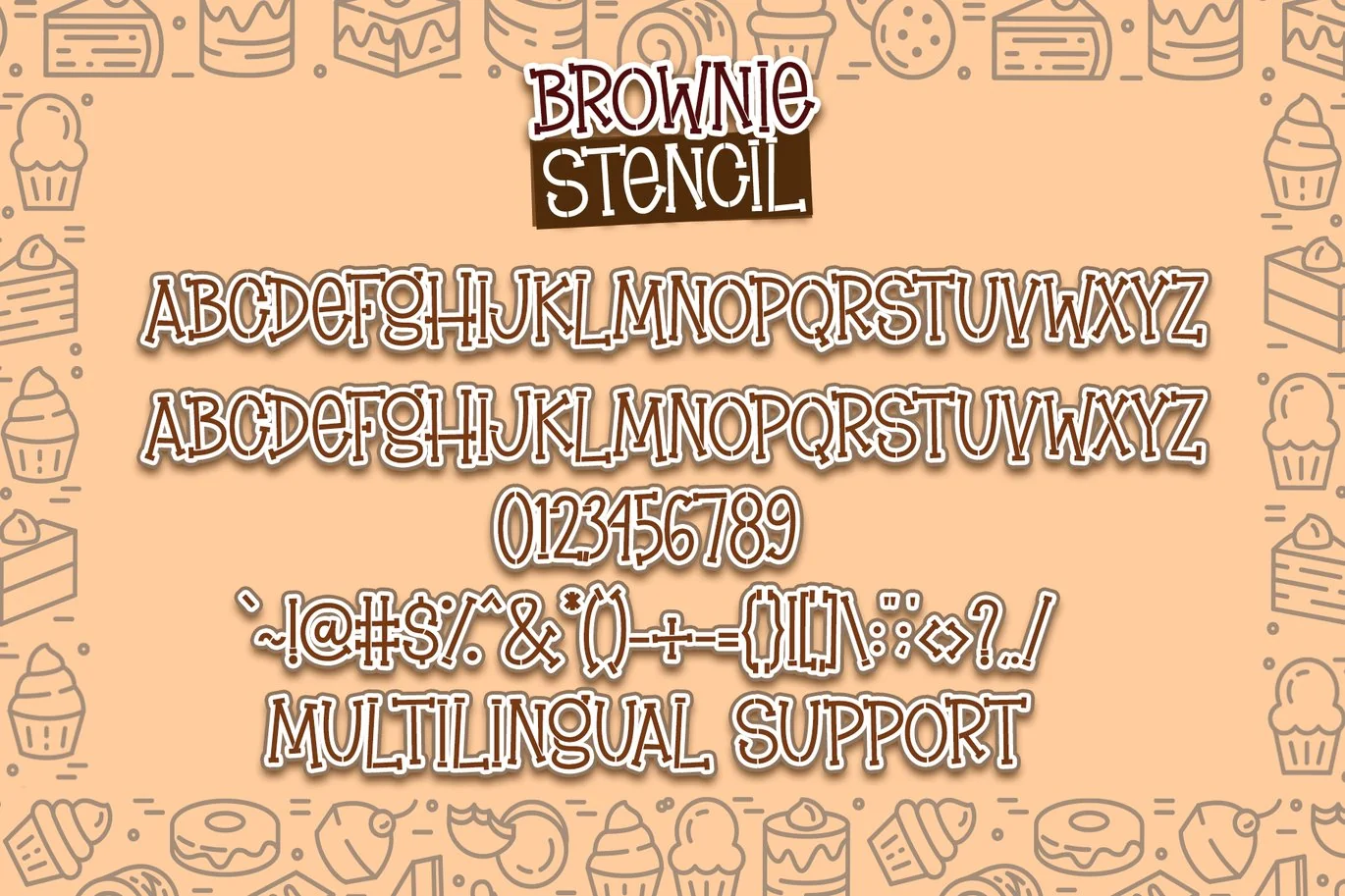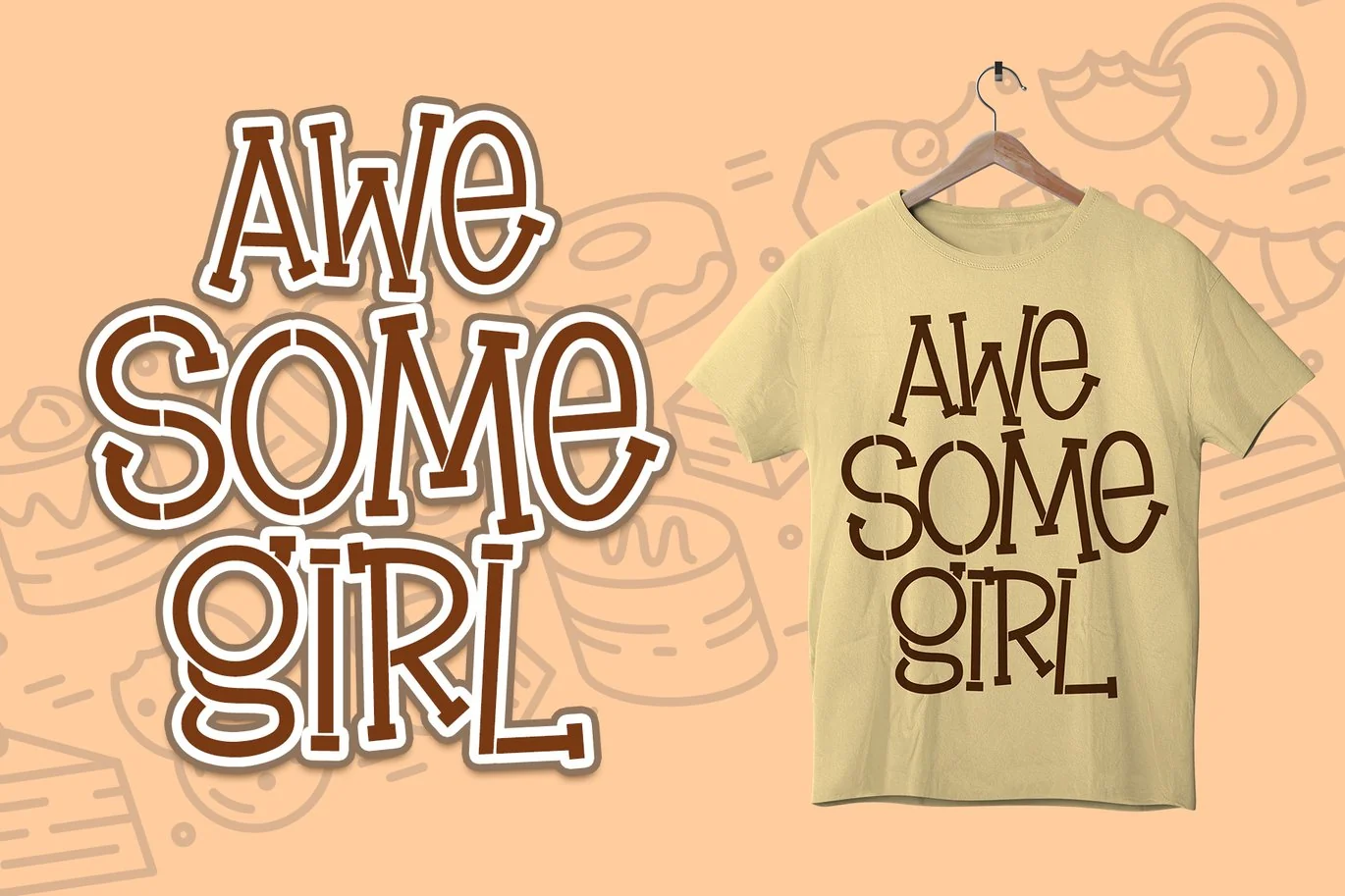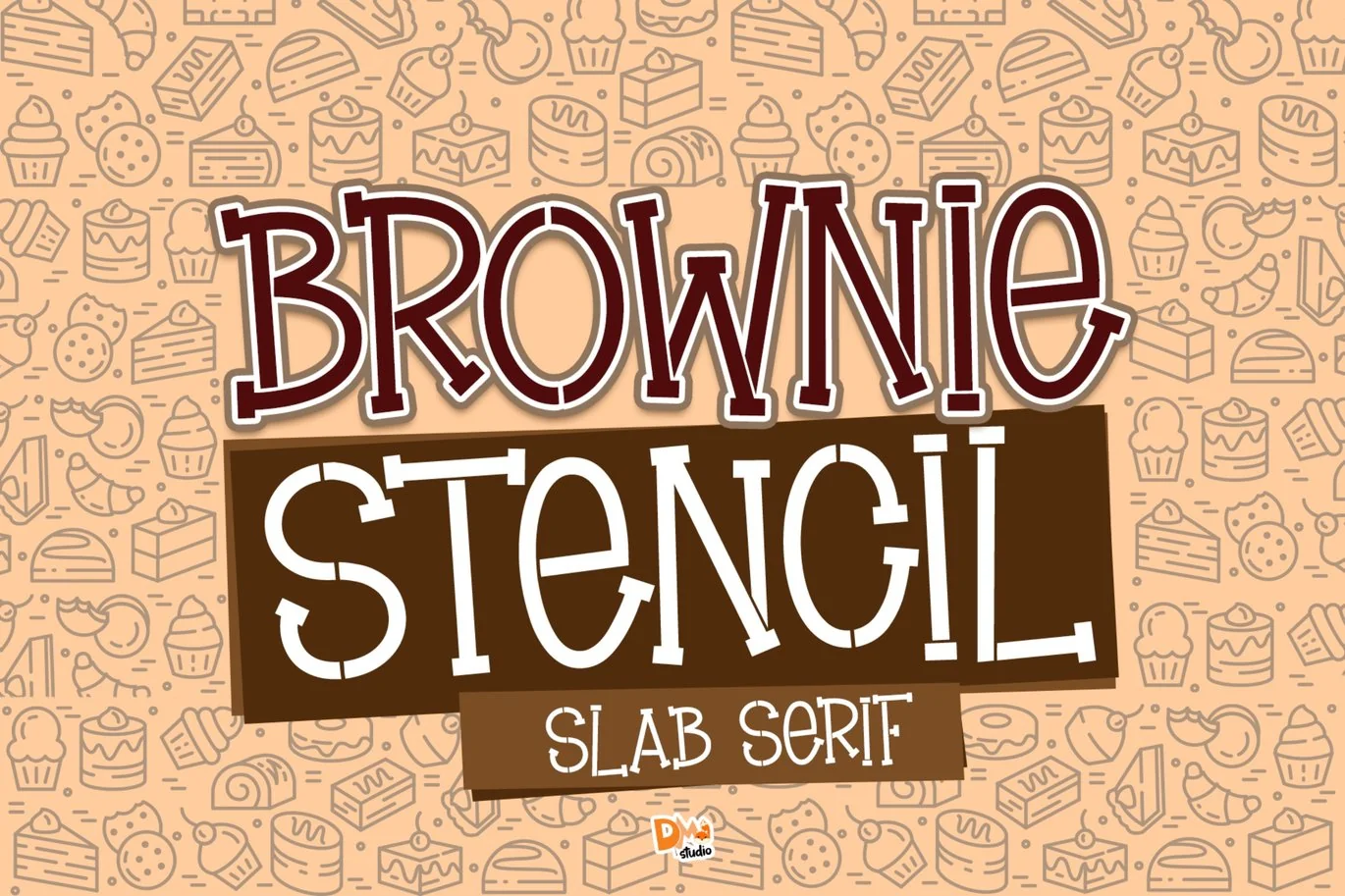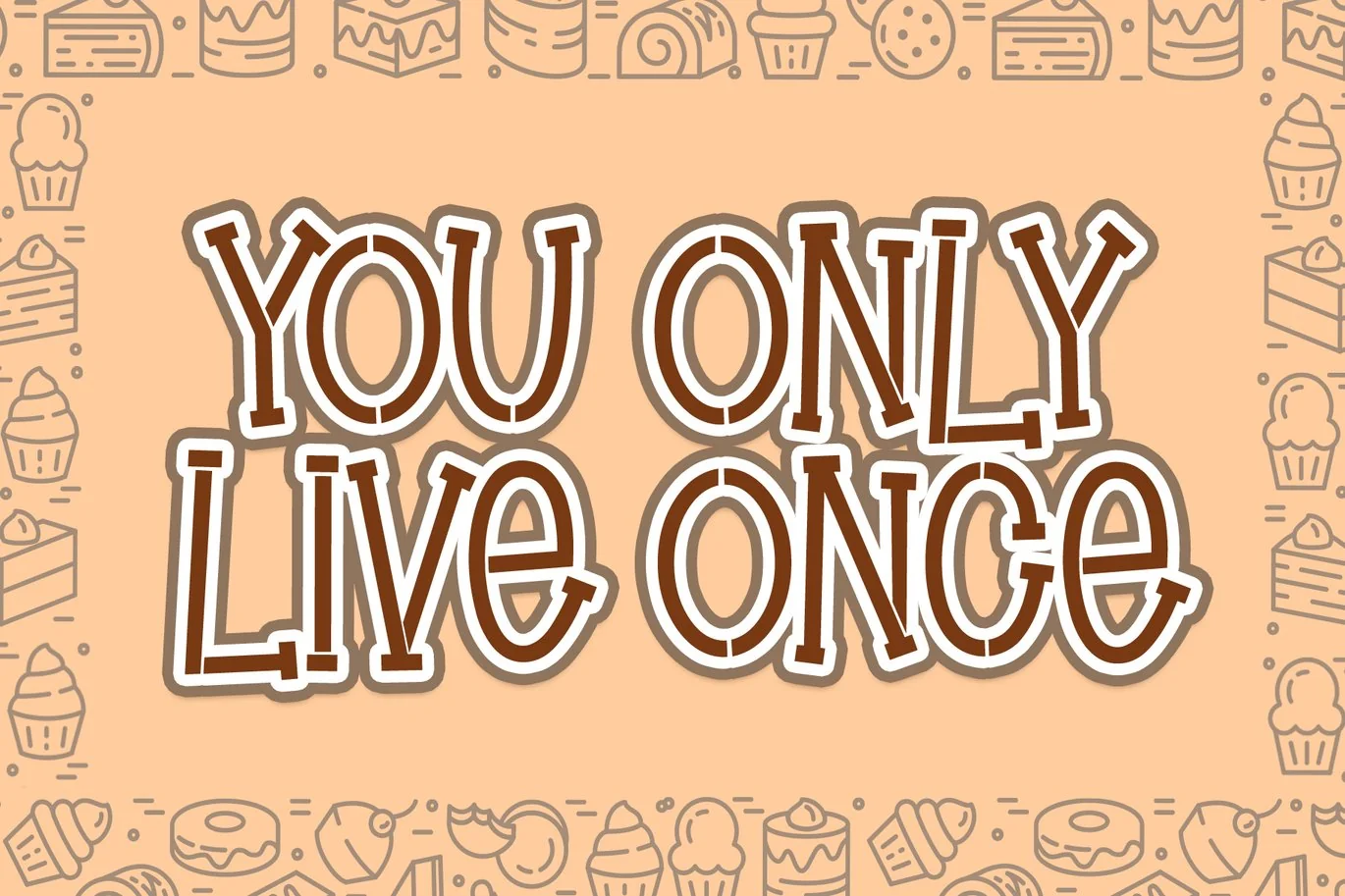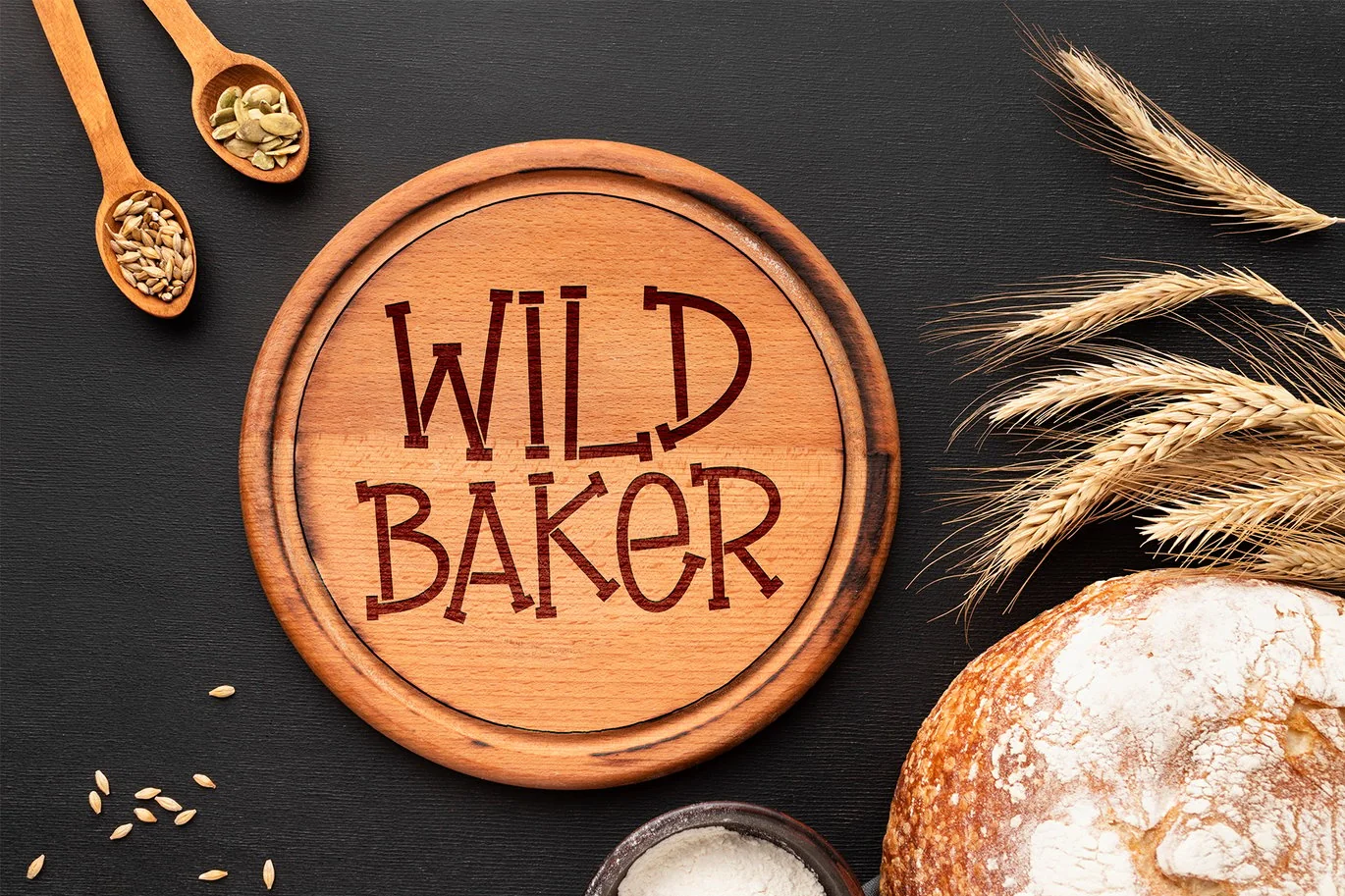
Brownie Stencil – Slab Serif Stencil Font
Introducing this fun, slab serif with stencil style font : Brownie Stencil !
Love our Brownie Yogurt Font? Here we have the stencil version of this gorgeous font!
Brownie Stencil comes with all in caps with two versions between uppercase and lowercase.
Brownie Stencil Slab Serif Stencil Font is great for any DIY crafts, party invitation, brand, social media posts, and much more.